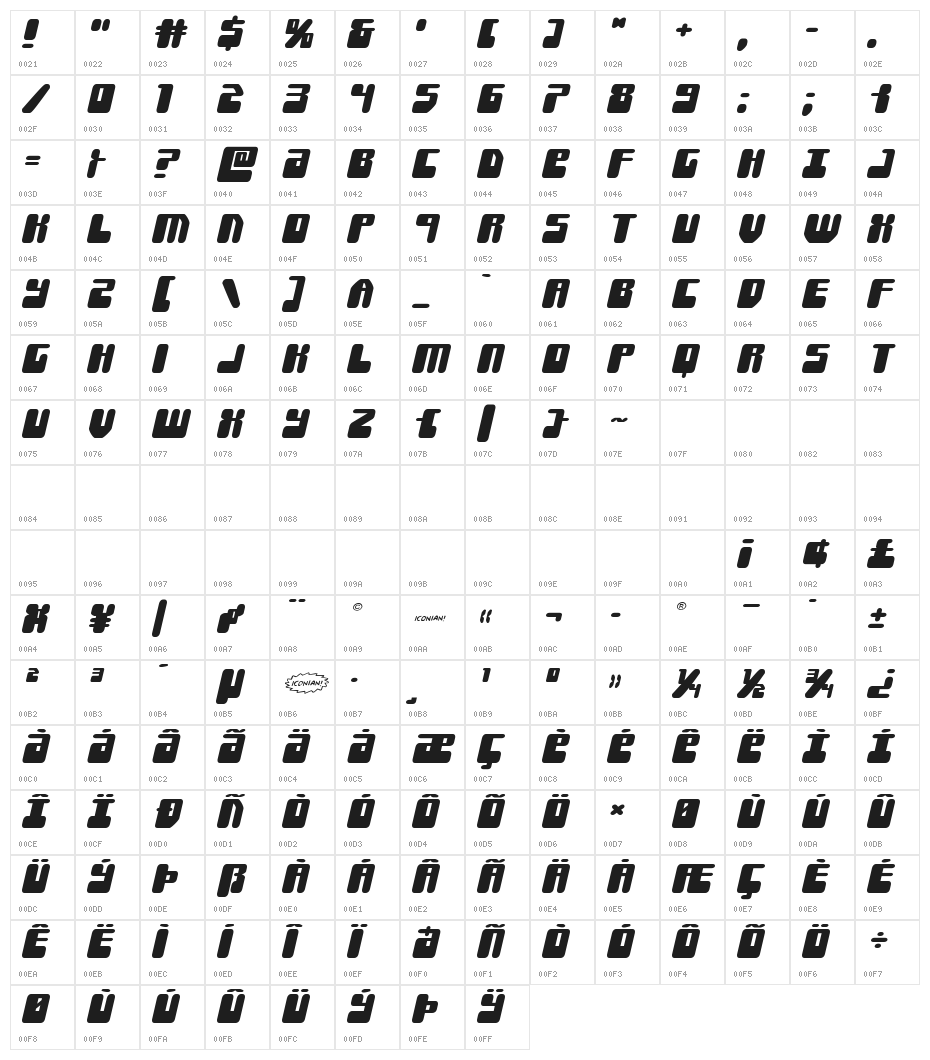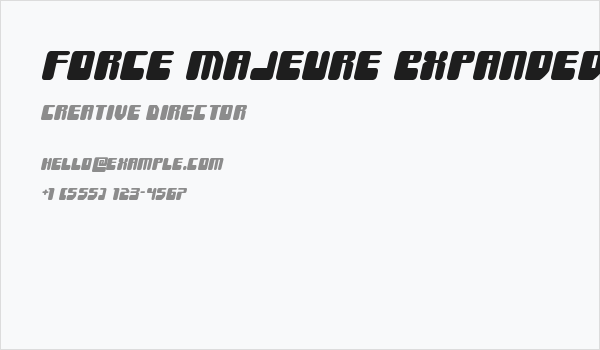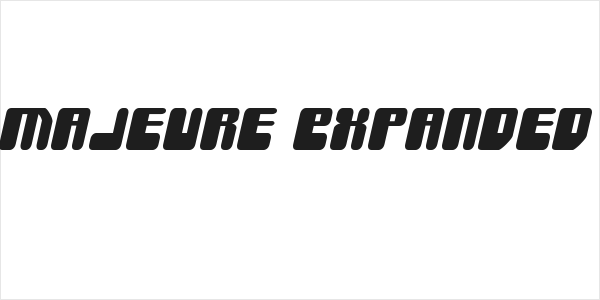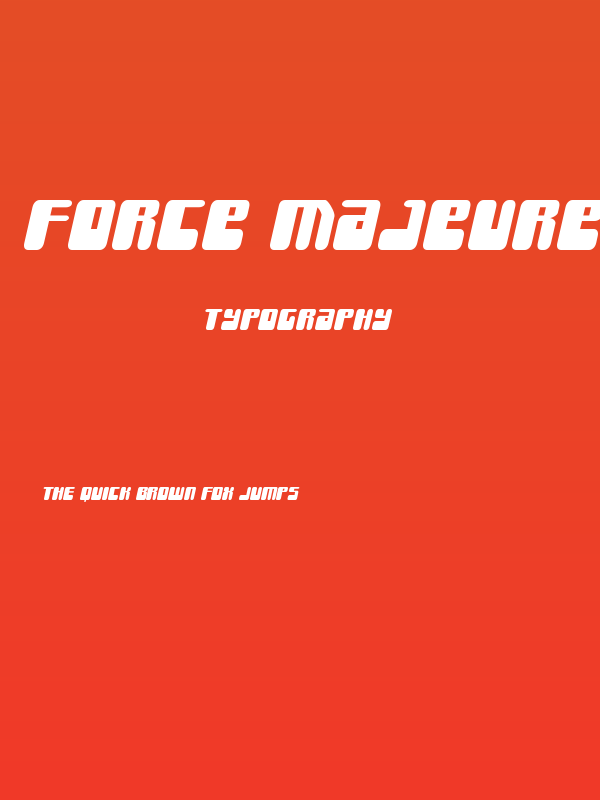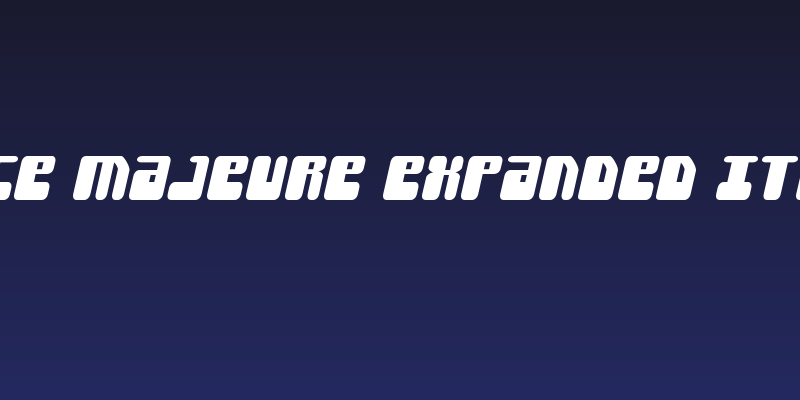
Force Majeure Expanded Italic Font
Force Majeure Expanded Italic Description
This font features a bold, expanded style with a distinct italic slant, giving it a dynamic and modern appearance. The characters are wide and have a strong presence, making them ideal for impactful designs. The rounded edges and smooth curves add a touch of softness to the otherwise robust structure. The uppercase and lowercase letters maintain a consistent style, with the numbers and special characters seamlessly integrated into the overall design. This font is well-suited for projects that require a bold statement, such as headlines, posters, and branding materials.
Proposed ProjectsIdeal for headlines, posters, branding, and any design requiring a bold statement.